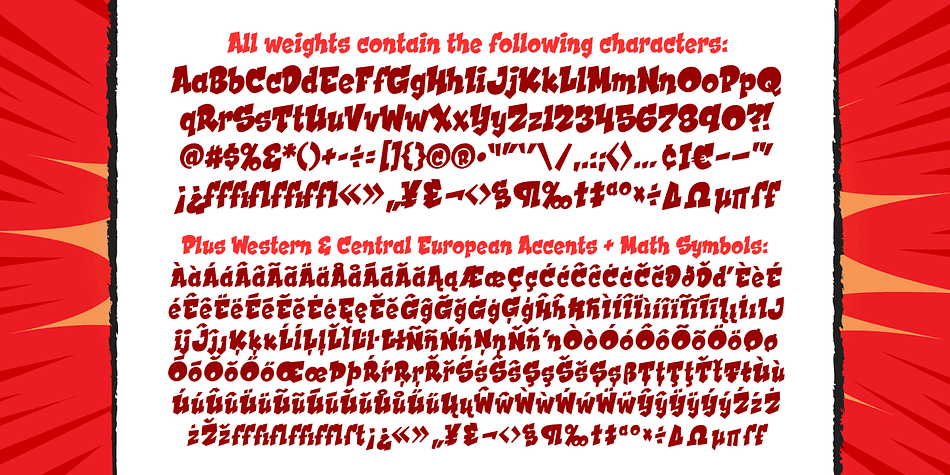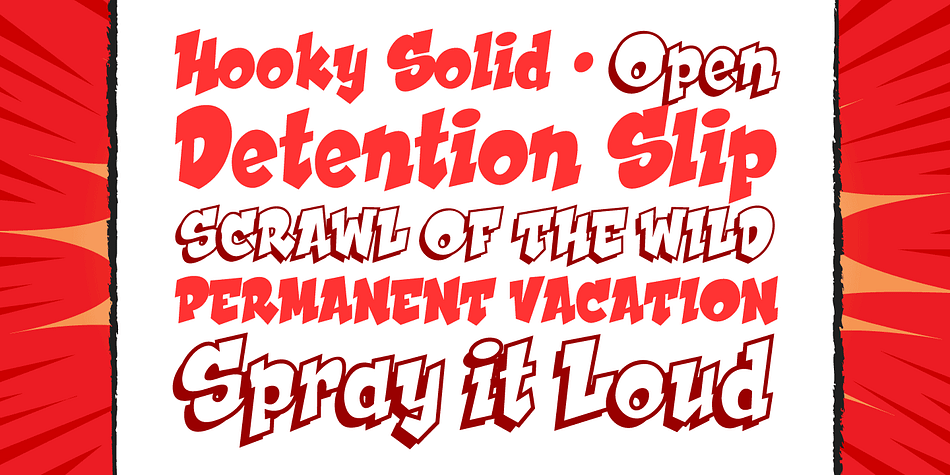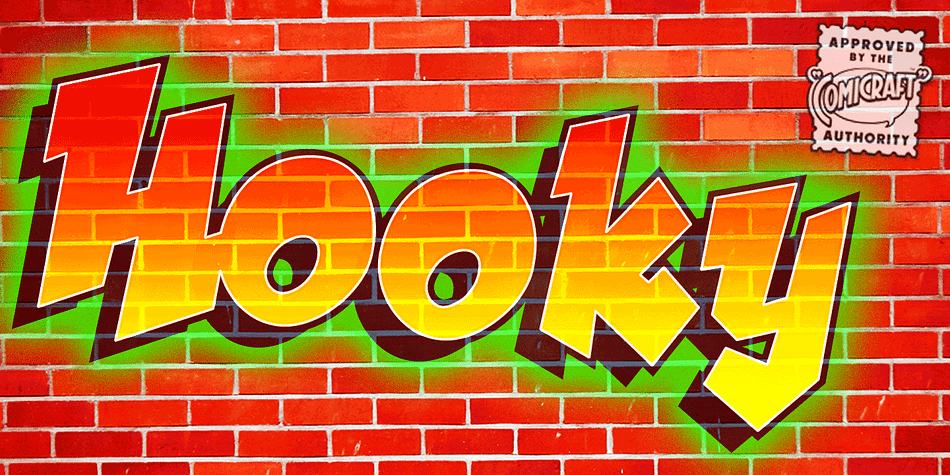
Designed by John Roshell, Hooky is a comic and hand display font family. This typeface has two styles and was published by Comicraft.
Originally created for Sound Effects in Marvel’s GHOST RIDER 2099, our spraycan stylish HOOKY font has just the right Scrawl of the Wild for graph-iti enthusiasts everywhere—and they wash right off with just a little splash of ‘delete’. Spray it, don’t Say it!